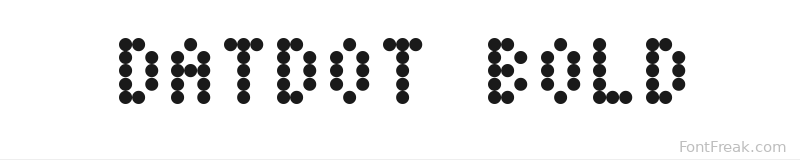
DatDot Bold
About DatDot Bold
DatDot Bold, created by GGBot, is an eye-catching display font that captures attention with its unique dot-based design. This typeface falls into the category of decorative fonts, featuring a bold and playful aesthetic that sets it apart from traditional typefaces. The visual characteristics of DatDot Bold include a consistent stroke weight that enhances its legibility, while the circular elements provide a modern, geometric flair. The spacing between the letters is intentionally designed to create a balanced look while maintaining a fun and approachable vibe, making it suitable for various design applications.
Ideal use cases for DatDot Bold include vibrant wedding invitations, where its whimsical nature can add a touch of charm; eye-catching movie posters that seek to capture the audience’s attention; trendy restaurant menus that convey a modern and playful atmosphere; and engaging social media graphics that stand out in crowded feeds. This font is particularly appealing to graphic designers looking to inject personality into their projects, as well as small business owners and content creators who wish to make a memorable impression through their branding.